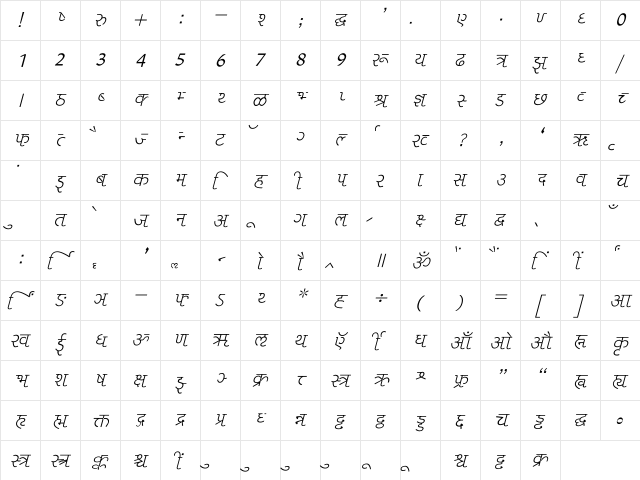
Liza Italic
Design Context for Liza Typeface
Liza is a composed and adaptable typeface that performs quietly and consistently across a wide range of design contexts. The slanted form adds forward momentum and visual energy.
Pro Tip: Use Liza for emphasis, pull quotes, and subheadings where its slanted energy can add rhythm to the layout.